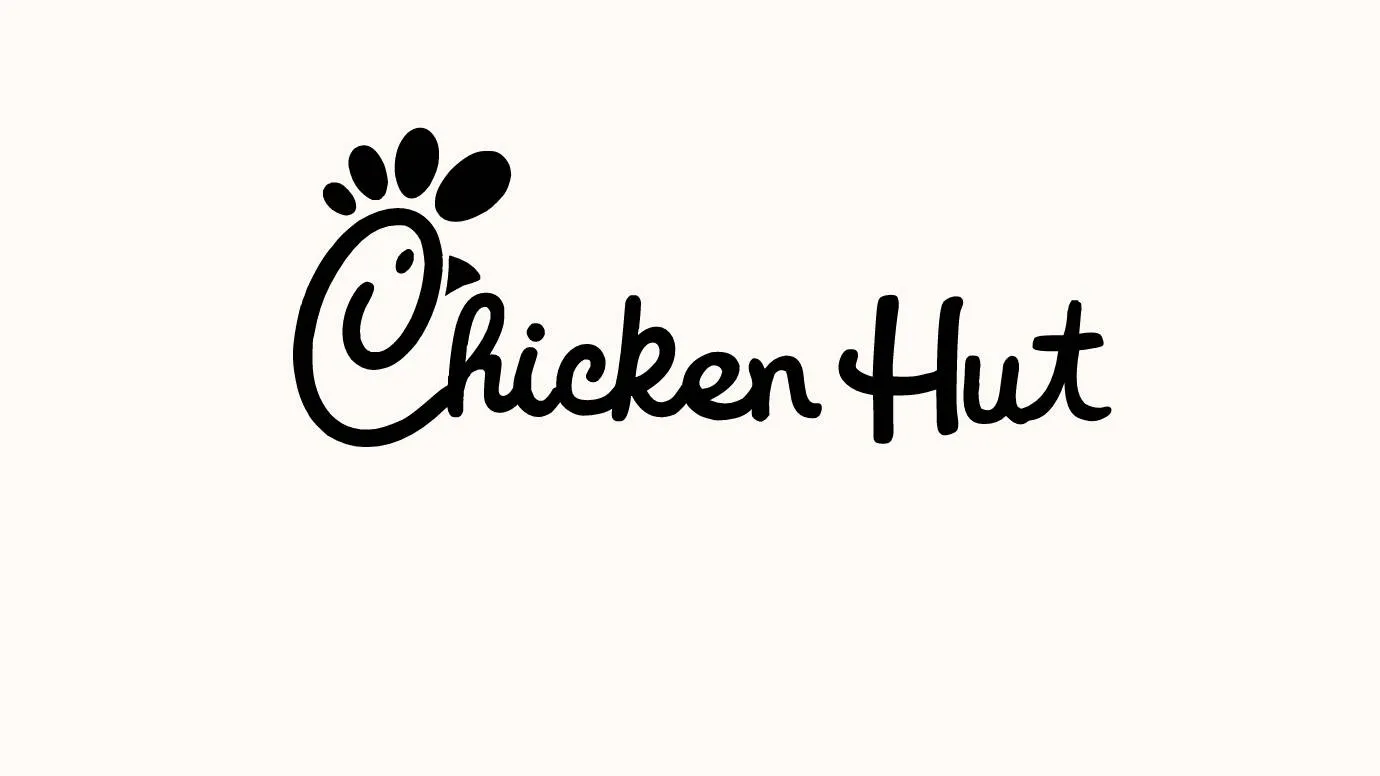
Chicken Hut Font Family is a very attractive script-type font. This amazing font was designed by High Logics font. The look of this typeface is very unique with a chicken head shape on its character ā€œCā€ which gives a very amazing look to your projects.
Chicken Hut Font